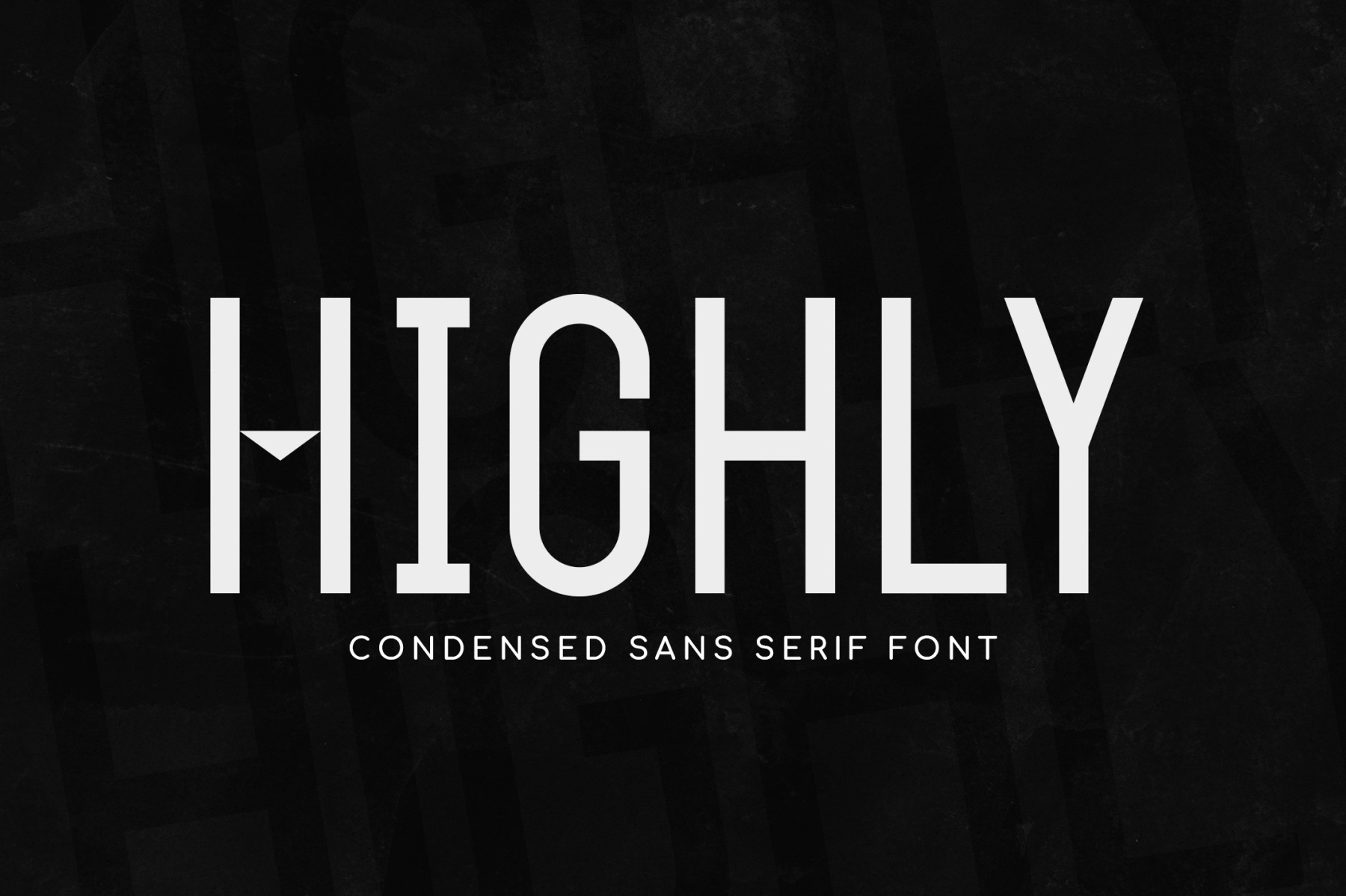
Highly a Cool Condensed Typeface
Highly is a very cool font for a design with modern display headline: magazine, poster, branding, labels, music, and minimalism styles. With a strong display and clean nodes make a text in a design become more character and great. Inspired by the current trend of sports texts with a very modern and cool headline style.
It is formed from a very carefully display headline font. Highly has 300+ glyphs. Suitable for any graphic design projects, prints, logos, posters, t-shirts, packaging and applicable for some types of graphic design. Highly is compatible with any software without any pain, especially in display design.